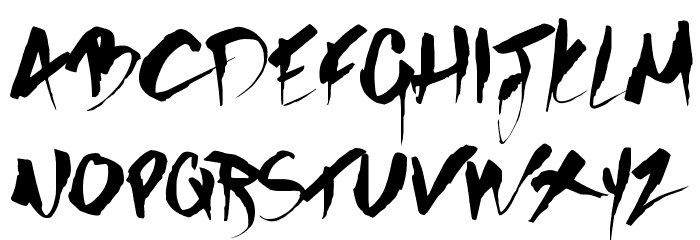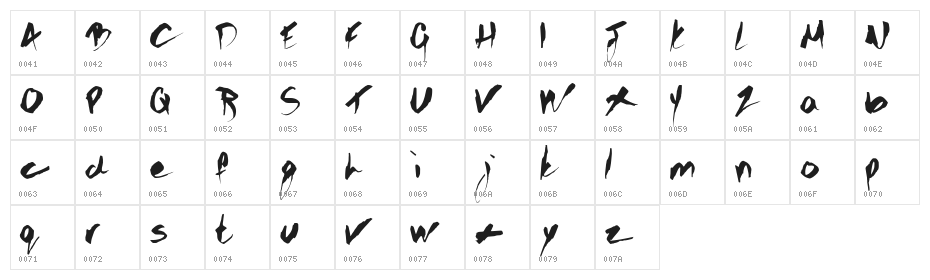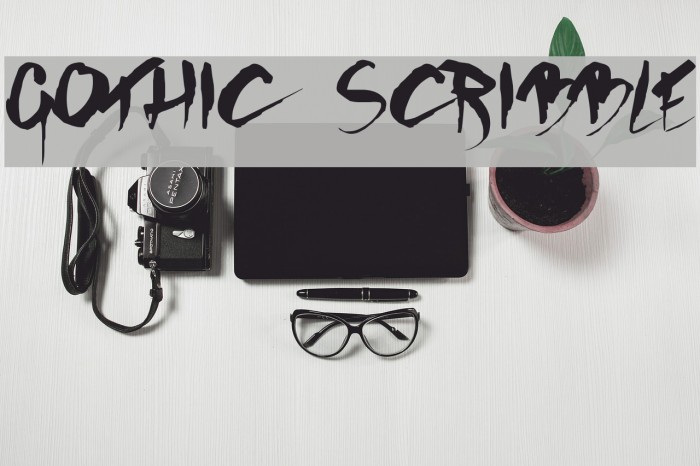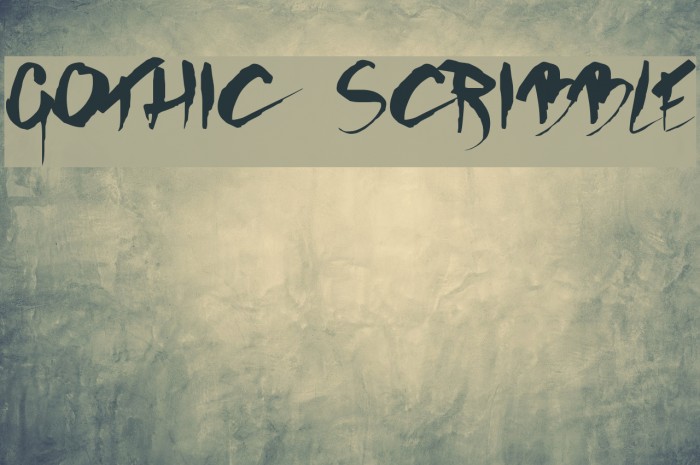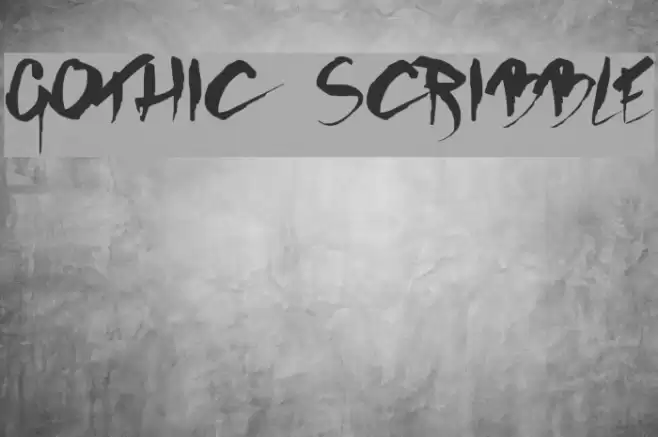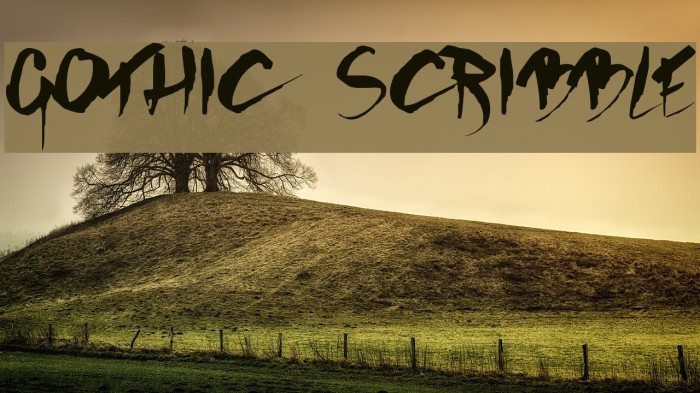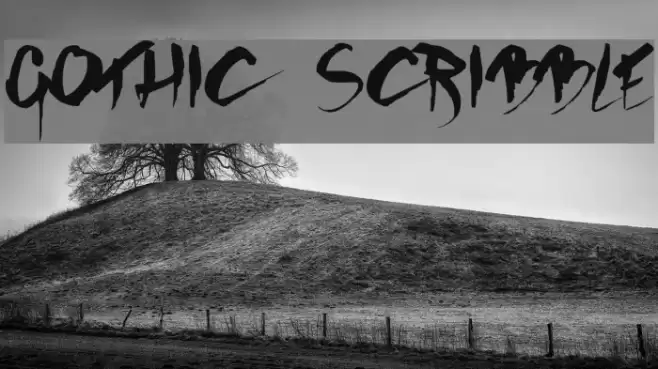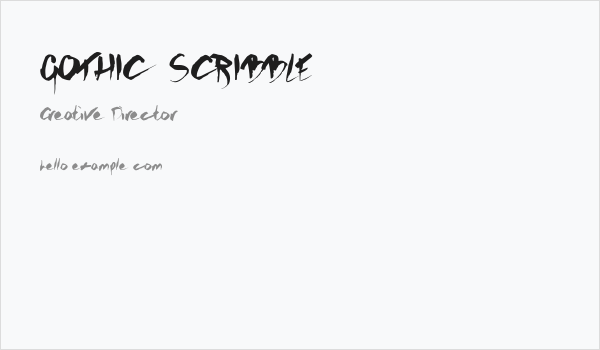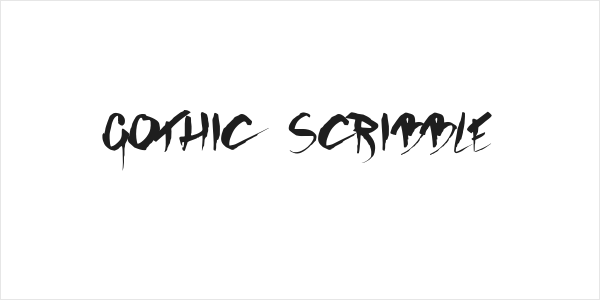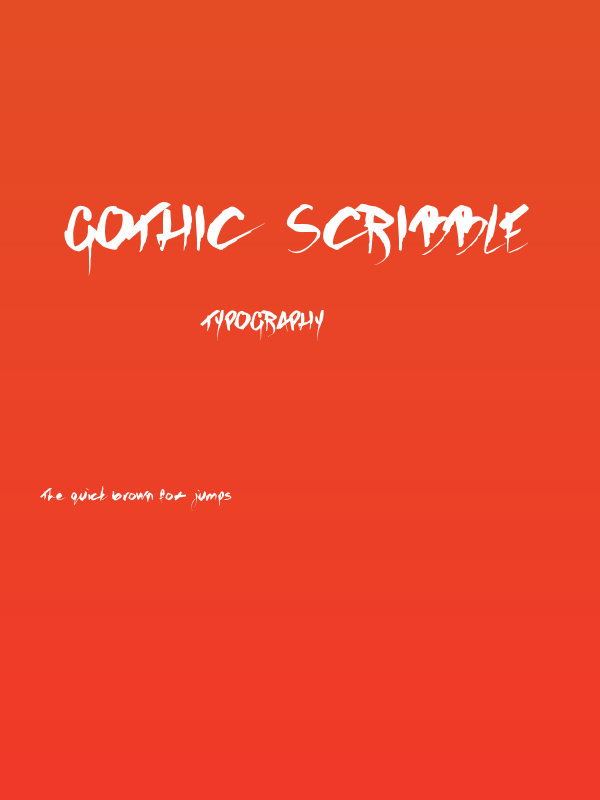
GOTHIC SCRIBBLE Font
GOTHIC SCRIBBLE Description
This font exudes a raw, energetic style reminiscent of graffiti or urban street art. The strokes are bold and dynamic, with a scribbled appearance that gives it a hand-drawn feel. Each letter is unique, with sharp angles and irregular lines that create a sense of movement and spontaneity. The uppercase and lowercase letters maintain a consistent style, while the numbers and special characters integrate seamlessly, adding to the font's cohesive look. This font's edgy and rebellious nature makes it stand out, capturing attention with its artistic flair.
| Proposed Projects | Ideal for streetwear branding, music album covers, urban-themed posters, and edgy graphic design projects. |